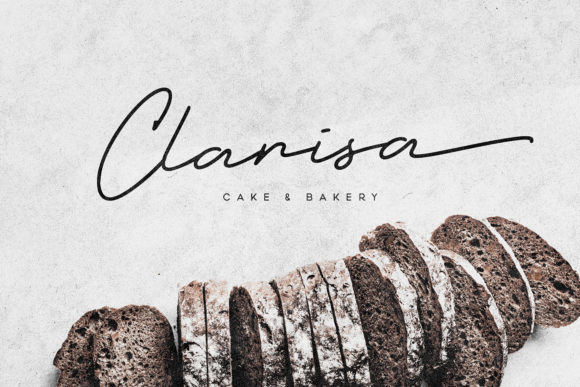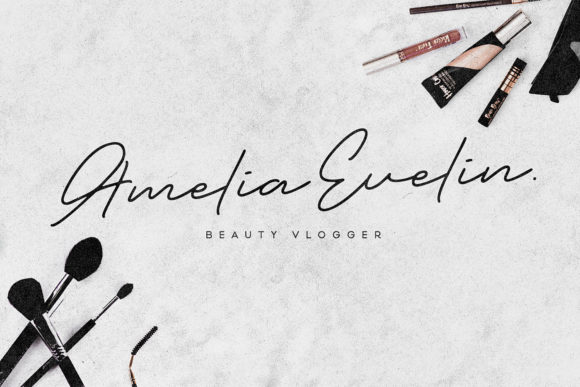
Hilstoria Font
About Hilstoria Font
Hilstoria is a modern and stylish script font. It features an incredibly classic style, while still keeping a friendly feel. Hilstoria is the perfect font for making original and outstanding designs.